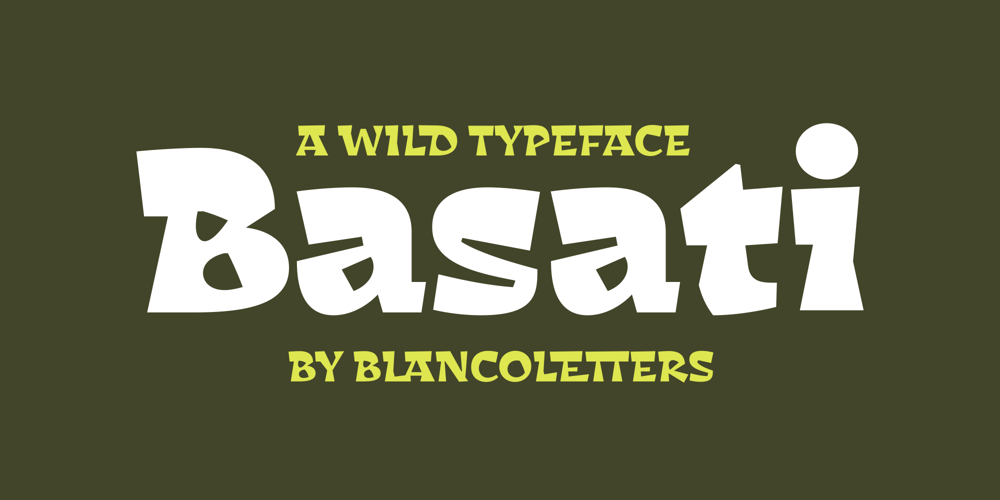
Basati Font Family was designed by Juan Luis Blanco and published by Blancoletters. Basati contains 5 styles and family package options. Basati is a display typeface designed for headlines and hard-hitting messages. It is sharp, heavy, and hard as an axe. But don’t be fooled by its rough look or the impression of having been carved with a machete. Each character is precise and sharp as a scalpel, and in that perfectly cut informality lies her deliberately wild temperament.Perhaps because its design was conceived during a severe bout of lumbago, its strokes are heavy and provocative, as if trying to defy logic and gravity alike.